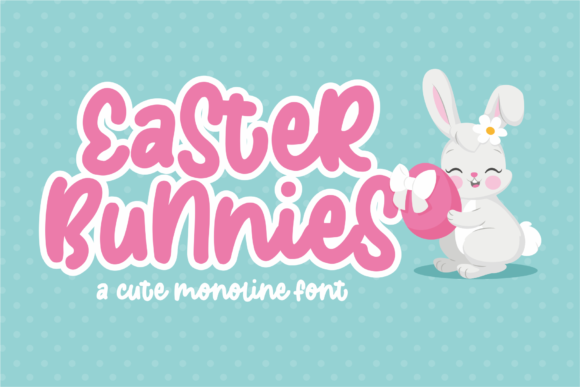
Introducing Easter Bunnies Font, the ultimate choice for those seeking the best fonts for cute designs! Created by Azetype, this bold display font has been meticulously handcrafted to captivate and inspire. With its enchanting charm, Easter Bunnies Font is a must-have for anyone in search of a font that truly stands out.
Are you an Instagram enthusiast or an avid DIYer? Look no further! Easter Bunnies Font is the perfect companion for your creative endeavors. Its playful yet elegant design adds a touch of whimsy to your social media posts, making them irresistibly captivating. Let your captions and stories come alive with this font's delightful personality!
But the magic of Easter Bunnies Font doesn't end there. Whether you're designing invitations, greeting cards, or personalized gifts, this font effortlessly transforms your projects into genuine works of art. Its carefully crafted strokes and intricate details lend a unique and sophisticated touch to any piece. Your creations will be the envy of all who behold them!
Let your imagination run wild as you explore the endless possibilities that Easter Bunnies Font offers. Craft stunning logos, stunning branding materials, or eye-catching headlines that leave a lasting impression. With this font, your message will be conveyed with style and grace, leaving your audience captivated and eager for more.
Infused with emotion and creativity, Easter Bunnies Font evokes feelings of joy, warmth, and innocence. It embraces the spirit of the holiday season and brings a sense of magic to any project. Its versatility knows no bounds, making it suitable for a wide range of applications and industries.